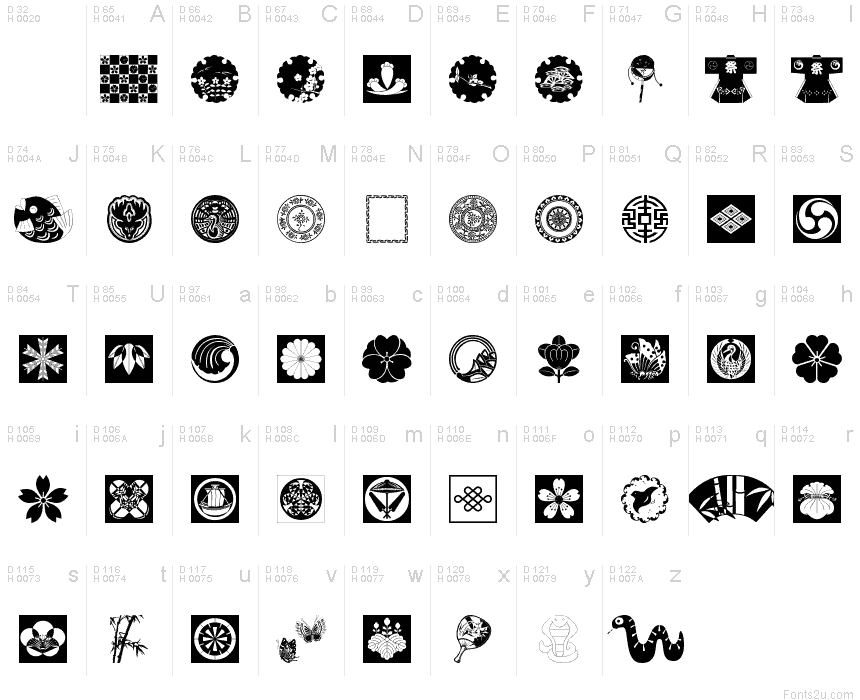
Oriental Design by Lime is a free Asian-inspired ornament dingbat font built from circular medallions, stylized flowers, and interlaced knots. Its shapes range from finely patterned emblems to broad, simplified silhouettes. Repeated symmetry gives the collection a calm, ceremonial quality.
The botanical and geometric motifs can extend illustration into packaging and event graphics. They also suit wellness branding and cultural publishing. Because the symbols resemble seals, blossoms, and woven ornaments, they can become central emblems rather than ordinary text.